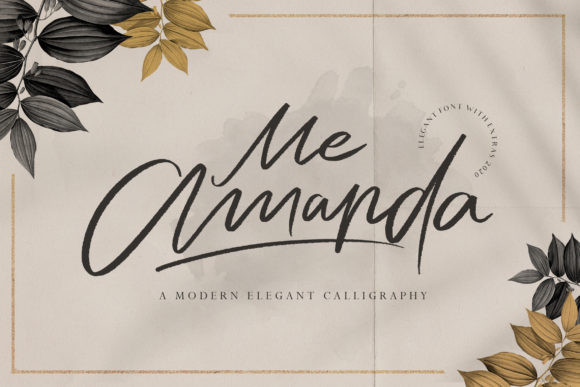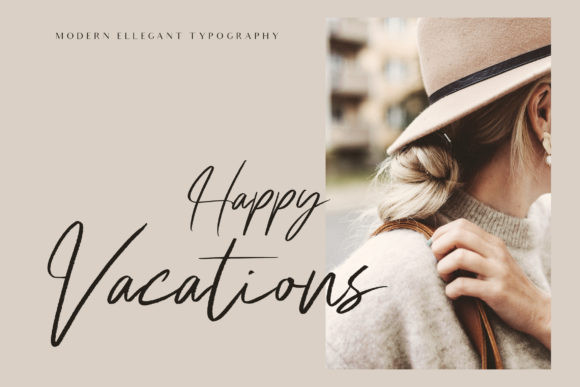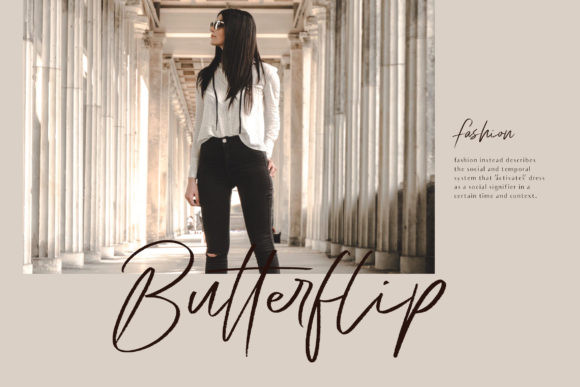
Me Amanda Font
Me Amanda is a modern calligraphy brushed font. It can be used for various purposes such as logos, wedding invitations, headings, t-shirts, letterhead, signage, labels, news, posters, badges and so much more.